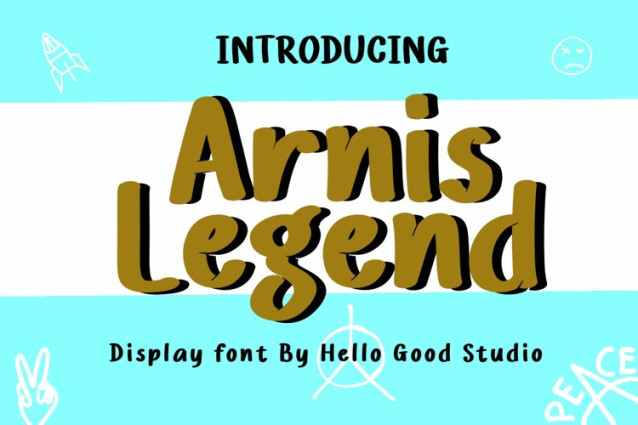
Arnis Legend Font
Arnis Legend Font a sweet and friendly handwritten font. Cute and fun, this font is ideal for writing wedding invitations, cards, or any other design that might need a fun touch!